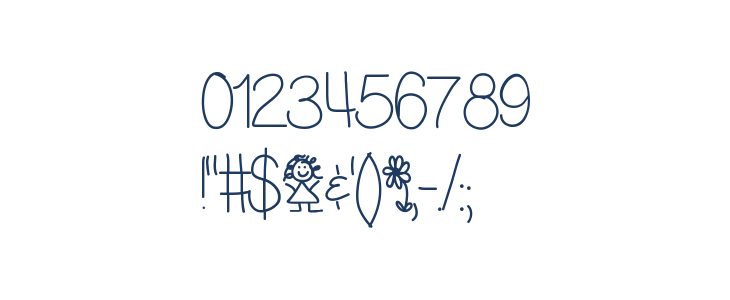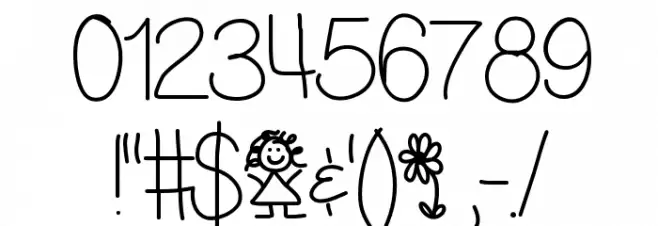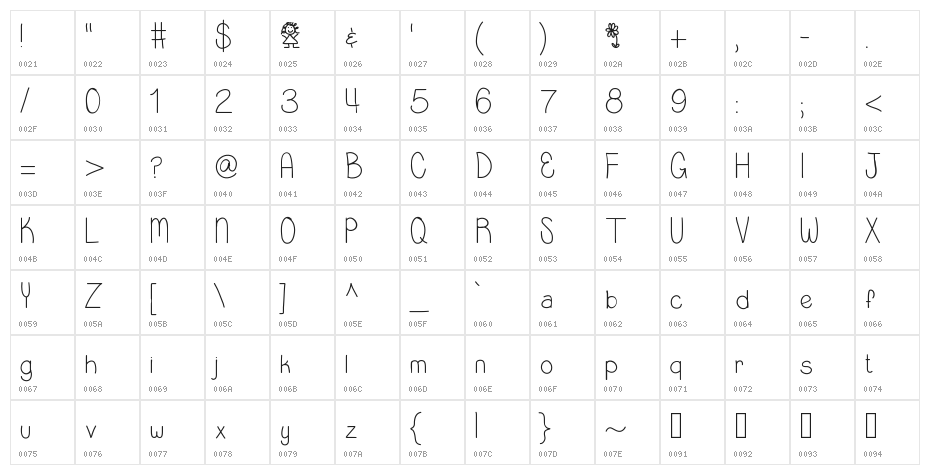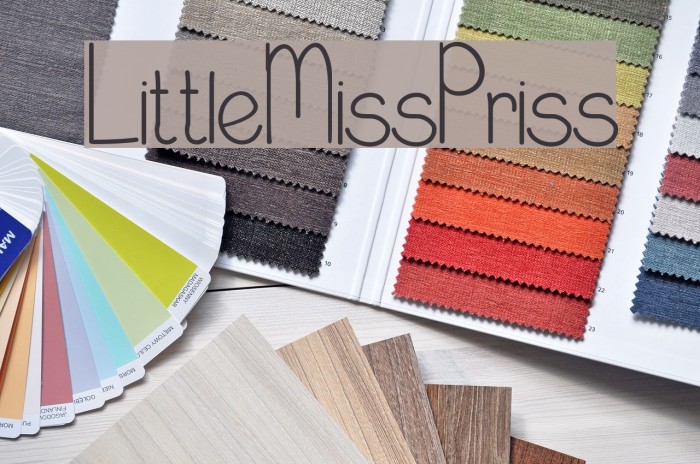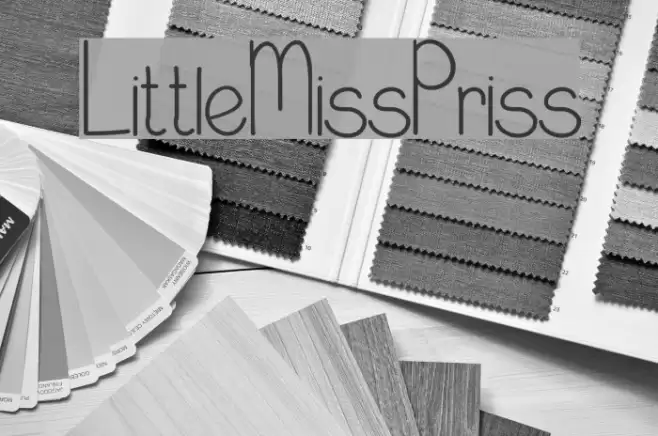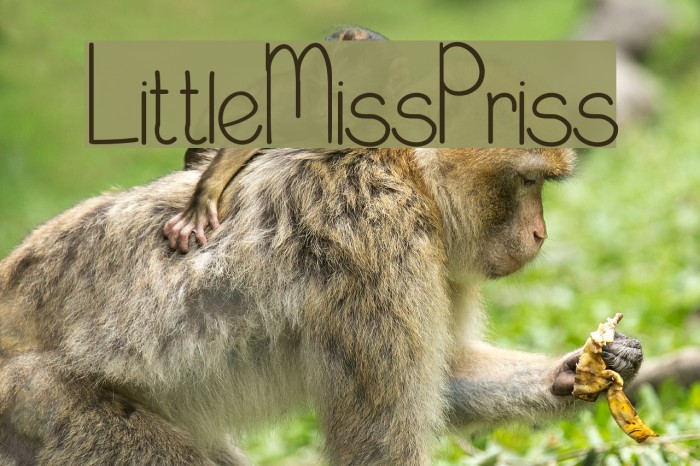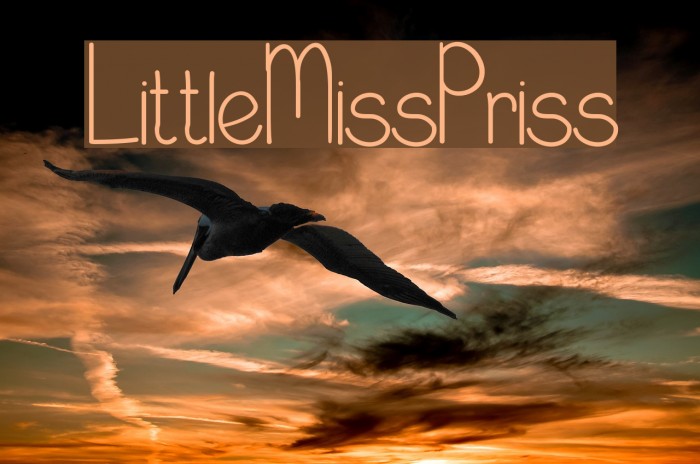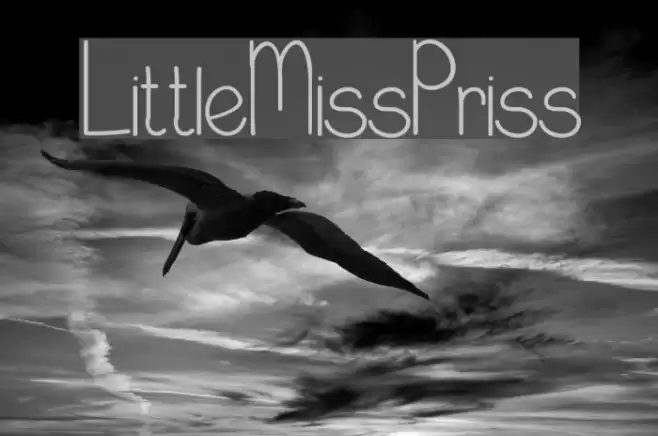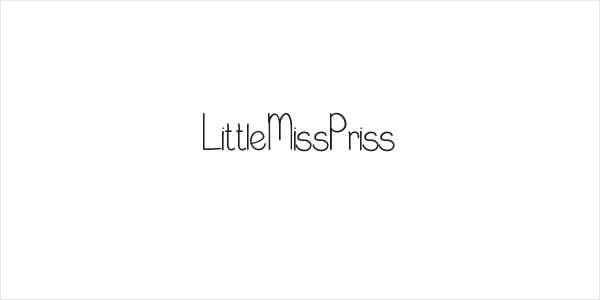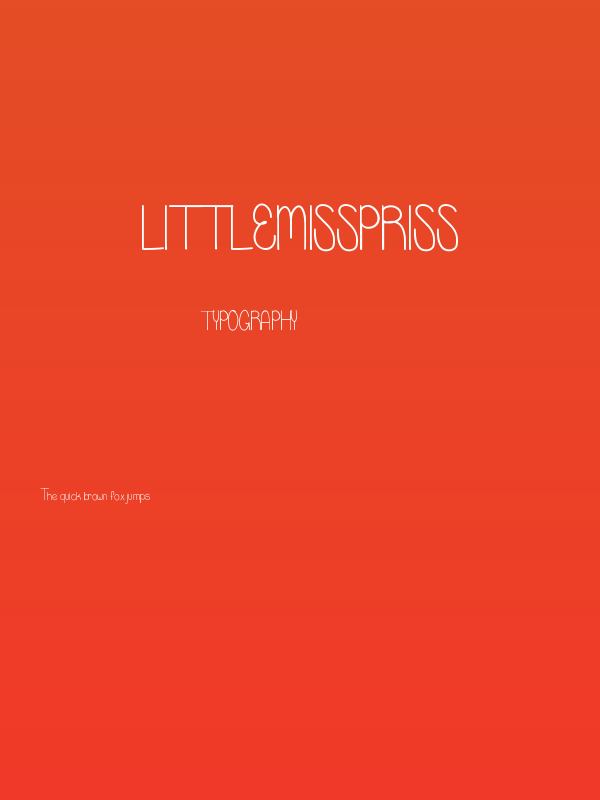
LittleMissPriss Font
LittleMissPriss Description
This playful and whimsical font features tall, narrow letters with a hand-drawn aesthetic. The characters have a consistent stroke width, giving them a clean and uniform appearance. The uppercase letters are particularly elongated, adding a touch of elegance and uniqueness. Lowercase letters maintain a similar style, with rounded edges that enhance the friendly and approachable feel. The numbers are clear and easy to read, matching the overall style of the alphabet. Special characters include charming doodles, such as a stick figure and a flower, which add a fun and creative element to the font. This font is perfect for projects that require a light-hearted and informal touch.
| Overall Style | Whimsical |
| Proposed Projects | Ideal for children's books, greeting cards, playful branding, and creative posters. |